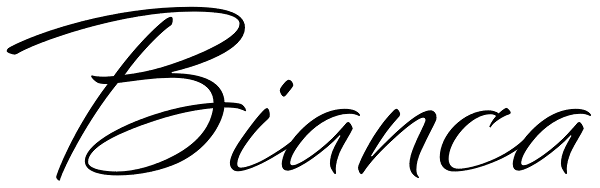
Bianca
Some characters make everything look easy. Bianca is a semi-connected script whose slim strokes, gently curving verticals, and big, beautiful capitals convey fashionable, feminine style. Customize the look with over 50 alternate glyphs.